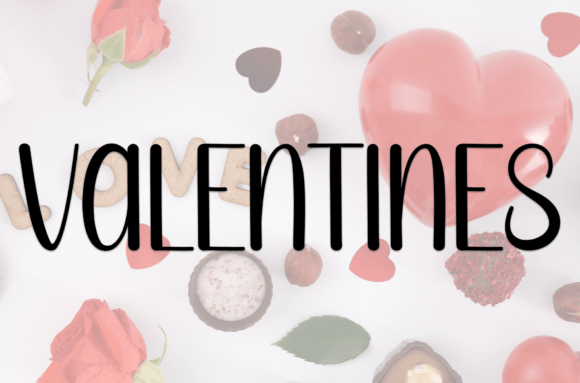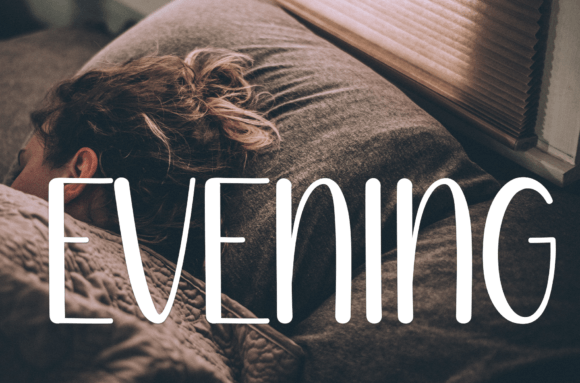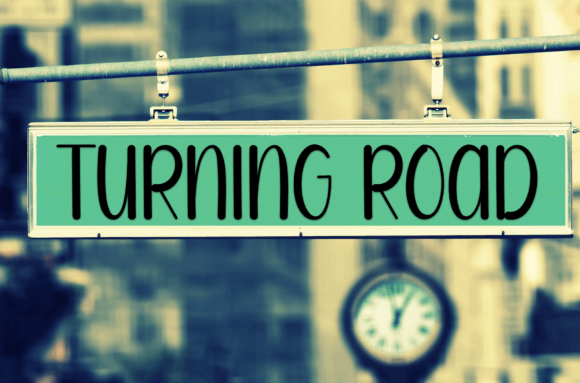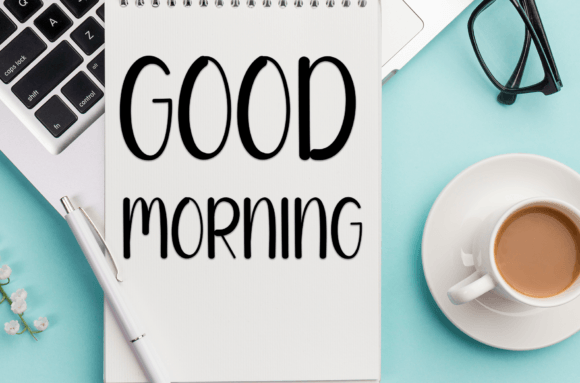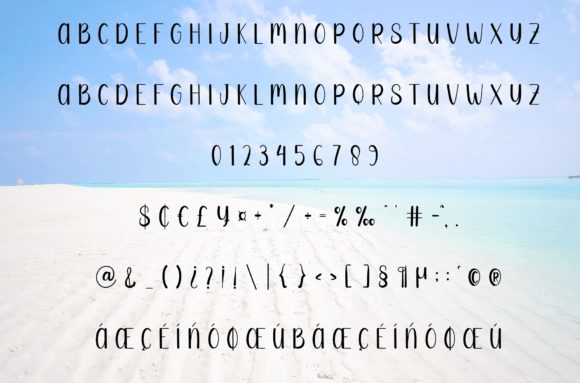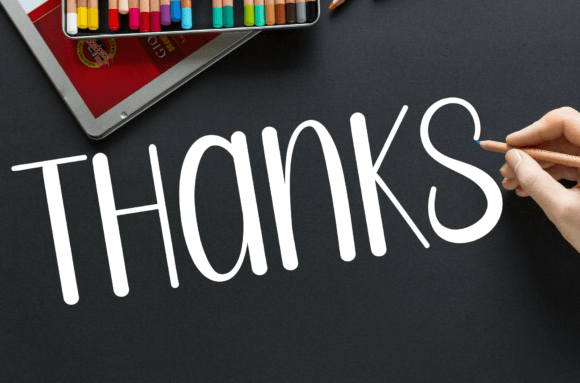
Introducing February Font: The Sweet and Friendly Handwritten Font
Are you looking for a font that can add a touch of warmth and personality to your designs? Look no further than February Font, a sweet and friendly handwritten font that’s perfect for creating beautiful wedding invitations, cards, and other designs that require a lovely touch.
What is February Font?
February Font is a handwritten font that’s designed to evoke a sense of fun and relaxation. With its smooth and flowing lines, this font is ideal for creating designs that require a personal and friendly touch. Whether you’re a designer, crafter, or DIY enthusiast, February Font is a great addition to your font collection.
Characteristics of February Font
So, what makes February Font so special? Here are some of its key characteristics:
- Handwritten style: February Font is a handwritten font that’s designed to look like it was written with a pen or pencil. This gives it a personal and unique touch that’s perfect for creating handmade-style designs.
- Sweet and friendly: The font has a sweet and friendly feel to it, making it perfect for creating designs that require a warm and inviting tone.
- Fun and relaxed: February Font is a fun and relaxed font that’s perfect for creating designs that require a playful touch.
- Legible: Despite its handwritten style, February Font is highly legible, making it easy to read and understand.
Uses for February Font
So, what can you use February Font for? Here are some ideas:
- Wedding invitations: February Font is perfect for creating beautiful wedding invitations that require a personal and romantic touch.
- Cards: Whether you’re creating birthday cards, thank-you cards, or get-well cards, February Font is a great choice.
- DIY projects: February Font is perfect for creating handmade-style DIY projects, such as scrapbook pages, journal entries, and craft projects.
- Signage: The font’s clear and legible style makes it perfect for creating signs, such as welcome signs, directional signs, and informational signs.
Tips for Using February Font
Here are some tips for using February Font:
- Use it with other fonts: February Font pairs well with other fonts, such as serif and sans-serif fonts. Experiment with different font combinations to create unique and interesting designs.
- Experiment with colors: February Font looks great in a variety of colors, from bright and bold to soft and pastel. Experiment with different colors to find the one that works best for your design.
- Pay attention to spacing: February Font has a natural, handwritten feel to it, so make sure to pay attention to spacing and kerning to create a clean and legible design.
February Font is a sweet and friendly handwritten font that’s perfect for creating beautiful designs that require a personal touch. With its smooth and flowing lines, this font is ideal for creating wedding invitations, cards, DIY projects, and more. Whether you’re a designer, crafter, or DIY enthusiast, February Font is a great addition to your font collection.